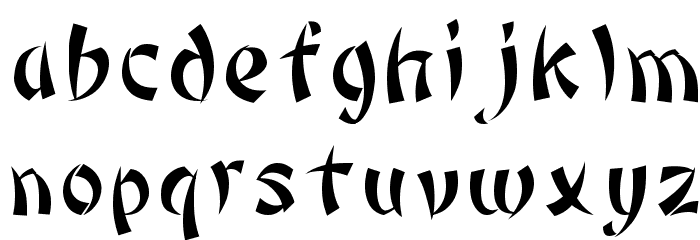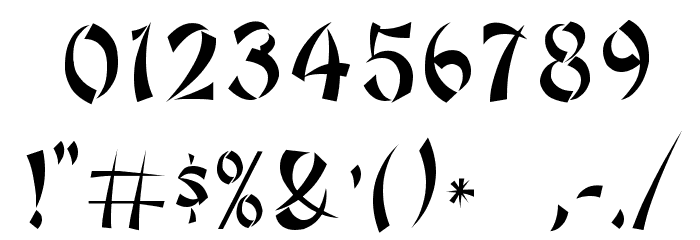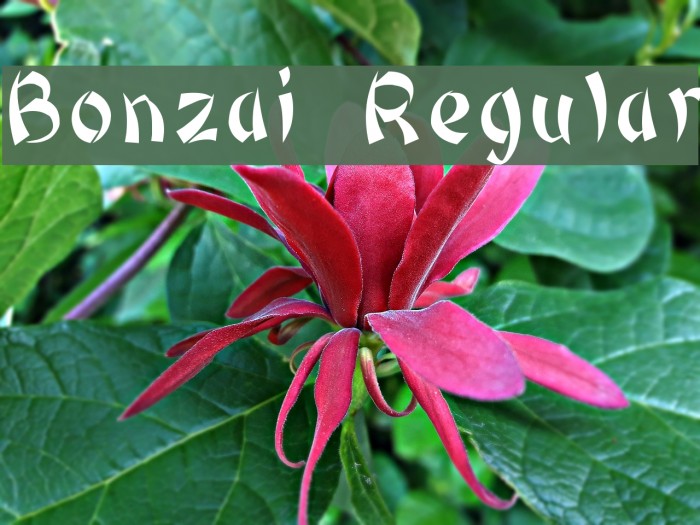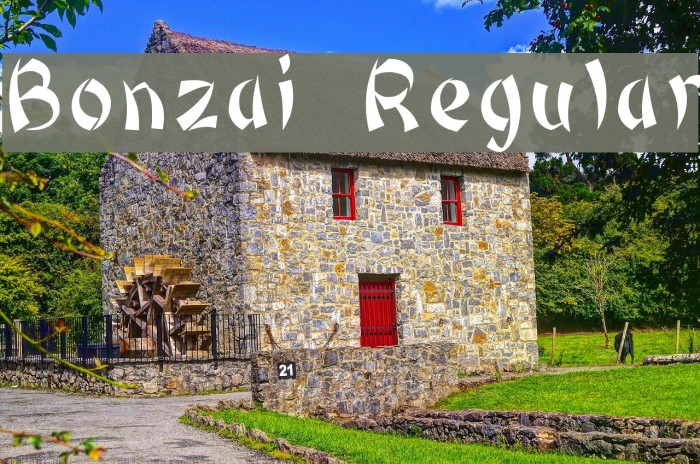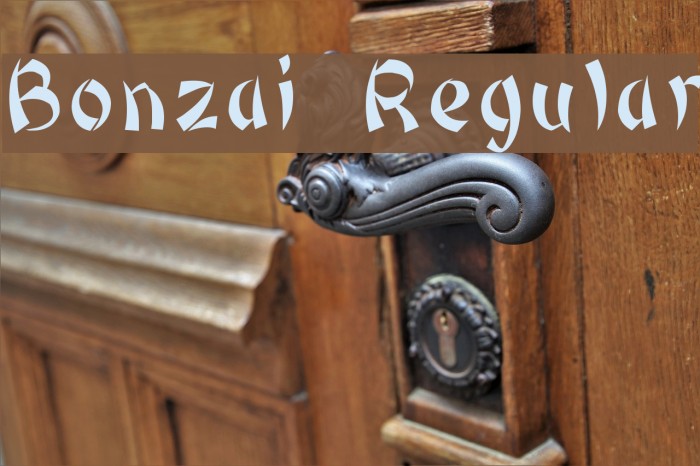
Bonzai Regular Font
This font features a bold and dynamic style with sharp, angular strokes that create a sense of movement and energy. The characters have a unique, artistic flair, with varying stroke thicknesses that add depth and interest. The uppercase letters are particularly striking, with their dramatic curves and pointed edges, while the lowercase letters maintain a consistent style that complements the overall design. The numerals and special characters are equally distinctive, making this font versatile for a range of creative applications.
A bold, dynamic font with sharp, angular strokes and artistic flair.
- Proposed Projects: Ideal for posters, album covers, branding, and creative projects that require a bold, artistic touch.